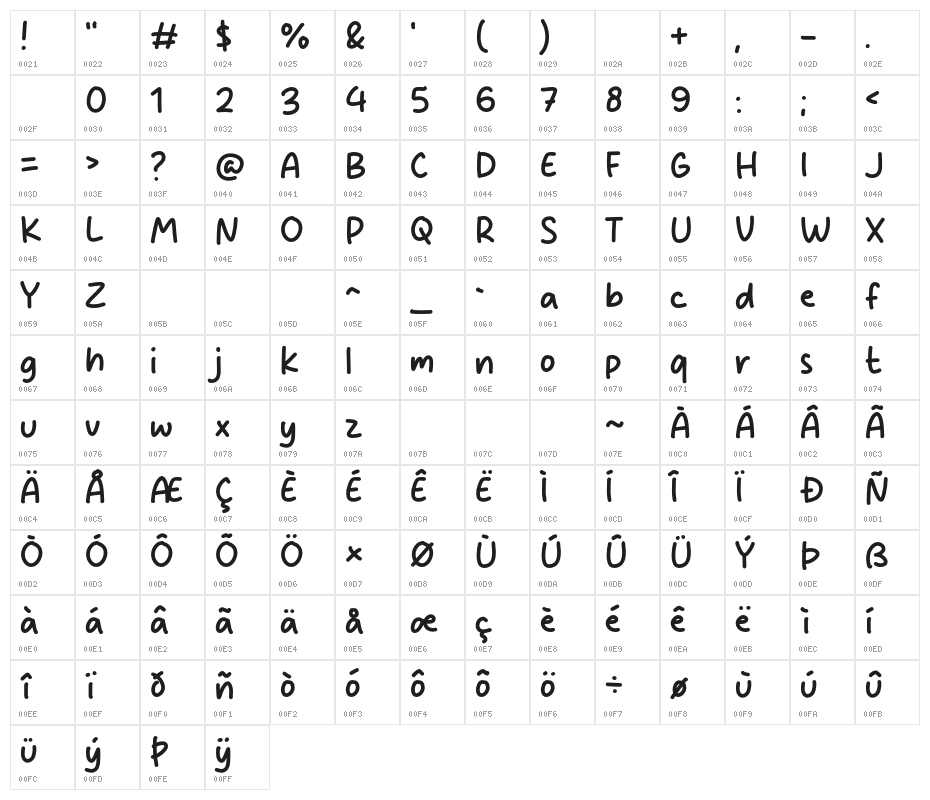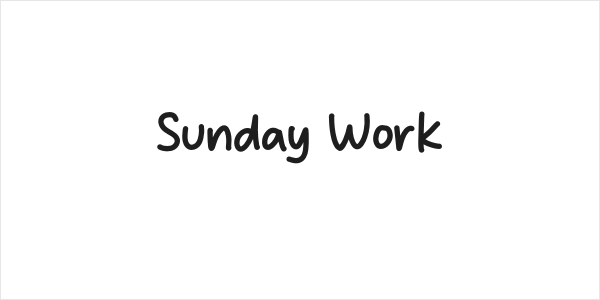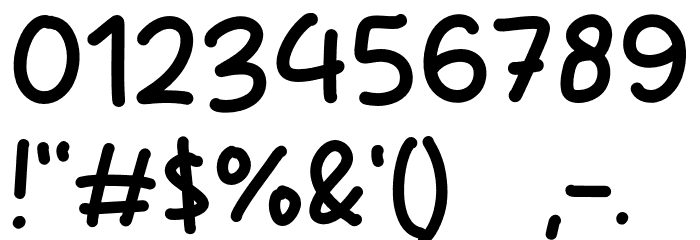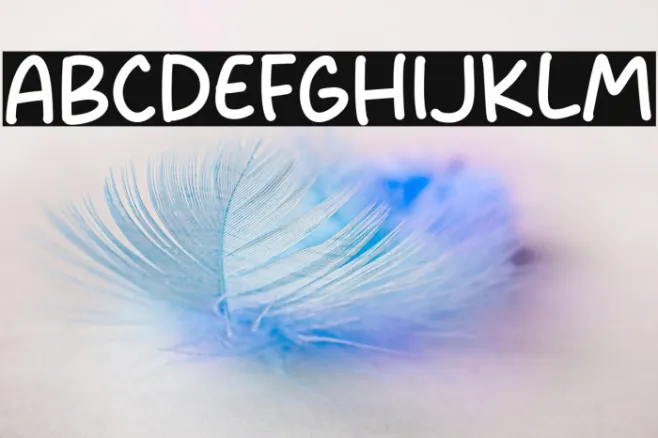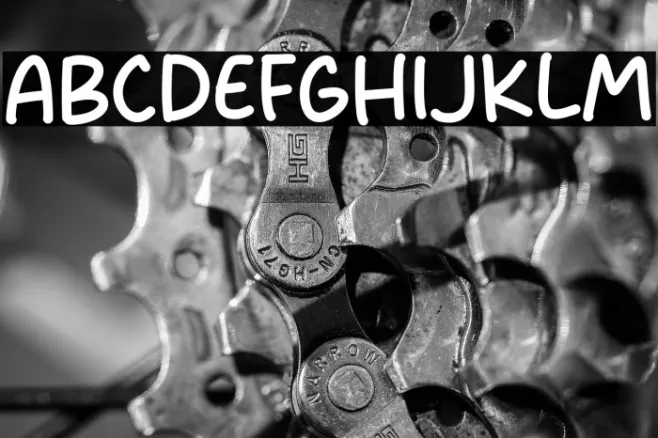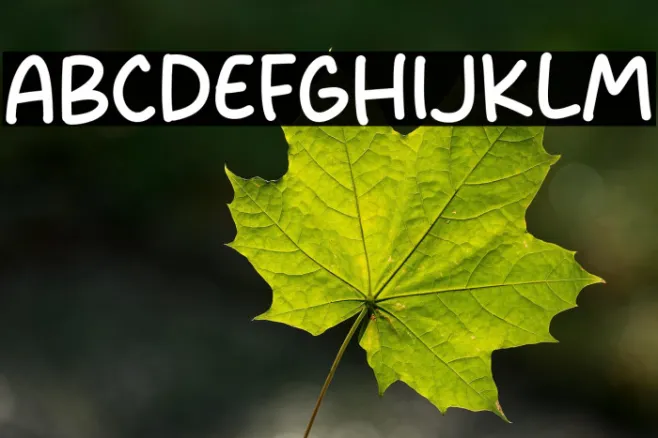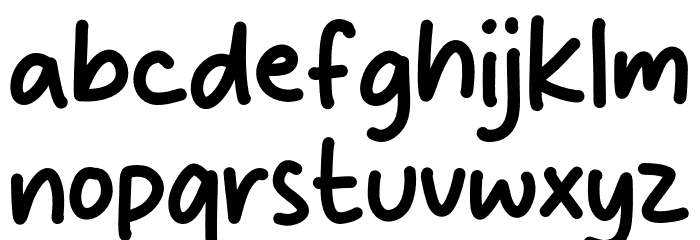
Sunday Work Font
Sunday Work Description
This font exudes a playful and casual handwritten style, characterized by its rounded and slightly irregular letterforms. The strokes are consistent in width, giving it a uniform appearance while maintaining a friendly and approachable vibe. The uppercase and lowercase letters are well-balanced, with a slight slant that adds to its informal charm. The numerals and special characters follow the same design principles, ensuring cohesion across all characters. This font is ideal for projects that require a personal touch, such as greeting cards, invitations, or children's book titles.
| Overall Style | Casual, Playful |
| Use Case | Headlines, Informal text, Branding |
| Proposed Projects | Ideal for greeting cards, invitations, children's books, and casual branding. |